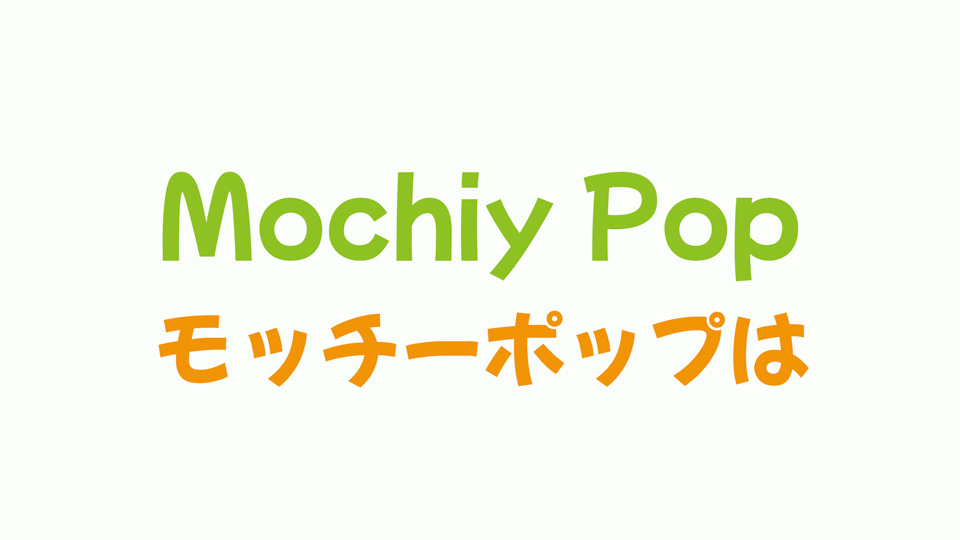
Feb 9, 2025Script & HandwrittenMochiy Pop Font Mochiy Pop is a casual font created based on characters written by girls in their 20s in Japan. A cute display font, you can use it widely, such as for manga, magazines, movies, and signs. Font DetailsDesigned by: FONTDASUWebsiteLicense: Free for commercial use, OFL Download Mochiy Pop FontFile size: 9.68 MBCreated: February 16, 2025Updated: February 16, 2025 Download Explore similar fonts Waloh Font Licobe Font Bakula Font Onekids Font Ninja Naruto Font Little Finger Font # Cartoon# Comic# Cute# Funny# Japanese# Playful